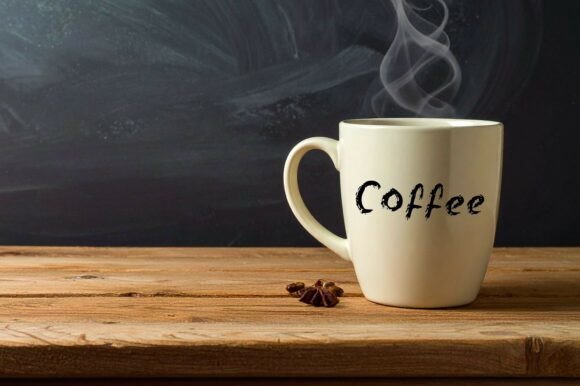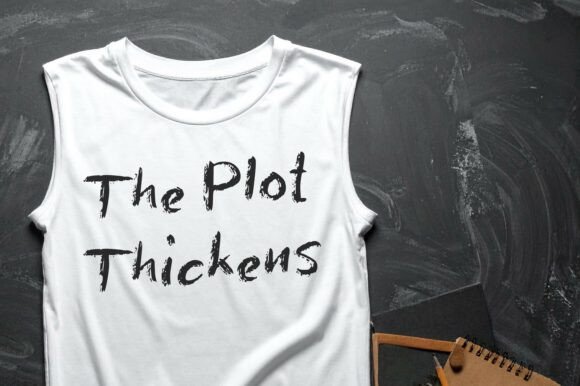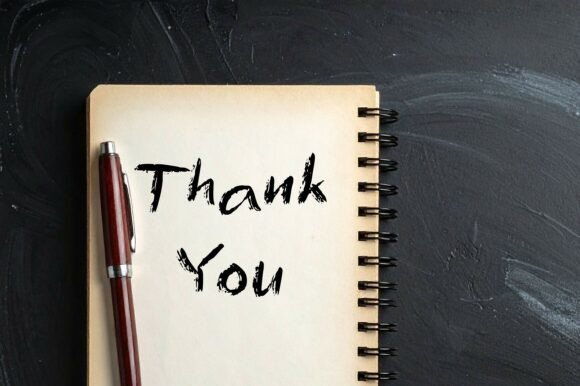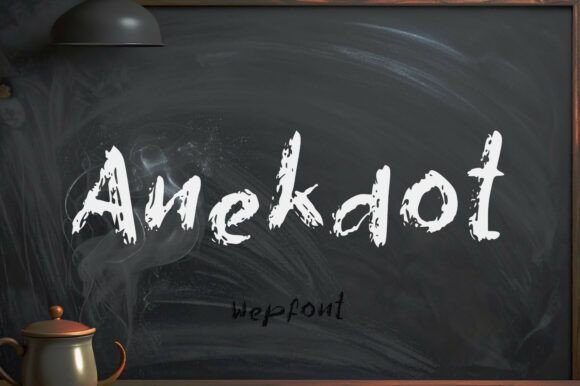
Anekdot Font: The Charming Typeface for Creative Projects
Are you looking for a font that can add a touch of warmth and approachability to your designs? Look no further than the Anekdot Font. This charming and informal typeface is perfect for creative projects that require a friendly, educational, or playful vibe. In this article, we’ll explore the unique features of Anekdot Font and how it can elevate your designs.
The Unique Features of Anekdot Font
The Anekdot Font is a beautifully crafted typeface that mimics the look of chalk on a blackboard. Its slightly textured edges, subtle inconsistencies in stroke width, and playful, hand-drawn character give it an authentic, casual, and somewhat nostalgic appeal. The uppercase letters are distinct, and the overall impression is one of warmth and approachability.
One of the standout features of Anekdot Font is its ability to capture the essence of spontaneous, handwritten chalk art. The font’s texture and imperfections give it a unique, hand-crafted feel that’s perfect for designs that require a personal touch. Whether you’re creating classroom materials, menu boards, or social media graphics, Anekdot Font is sure to add a touch of rustic charm and personality to your project.
Perfect for Educational and Creative Projects
Anekdot Font excels in applications where a friendly, educational, or creative vibe is desired. It’s perfect for:
• Classroom materials: Add a playful touch to your lesson plans, worksheets, and educational posters with Anekdot Font.
• Menu boards: Give your cafe or restaurant menu a charming, handwritten look with Anekdot Font.
• Social media graphics: Create quirky and engaging social media graphics with Anekdot Font.
• Children’s book titles: Add a touch of whimsy and wonder to your children’s book titles with Anekdot Font.
Why Choose Anekdot Font?
So why choose Anekdot Font for your creative projects? Here are just a few reasons:
• Unique and eye-catching: Anekdot Font is a one-of-a-kind typeface that’s sure to grab attention.
• Versatile: Anekdot Font can be used for a wide range of creative projects, from educational materials to social media graphics.
• Easy to read: Despite its playful, handwritten feel, Anekdot Font is easy to read and understand.
• Adds personality: Anekdot Font adds a touch of personality and whimsy to your designs, making them stand out from the crowd.
Tips for Using Anekdot Font
Here are a few tips for getting the most out of Anekdot Font:
• Use it for headlines: Anekdot Font is perfect for headlines and titles, where its playful, eye-catching feel can really shine.
• Pair it with a sans-serif font: For body text, pair Anekdot Font with a clean, sans-serif font to create a nice contrast.
• Experiment with colors: Anekdot Font looks great in a range of colors, from bright and bold to pastel and soft.
In conclusion, Anekdot Font is a charming and versatile typeface that’s perfect for creative projects that require a friendly, educational, or playful vibe. Its unique features, such as its textured edges and hand-drawn character, give it an authentic, casual, and somewhat nostalgic appeal. Whether you’re a designer, crafter, or educator, Anekdot Font is sure to add a touch of rustic charm and personality to your projects.